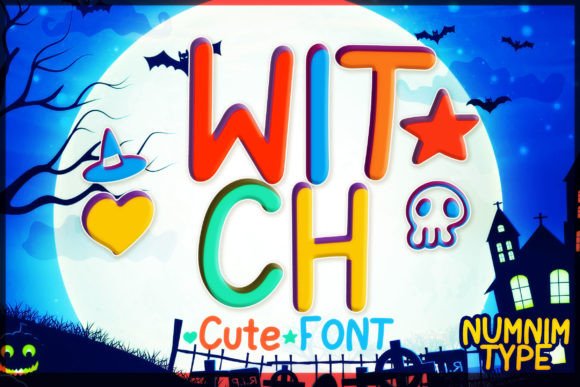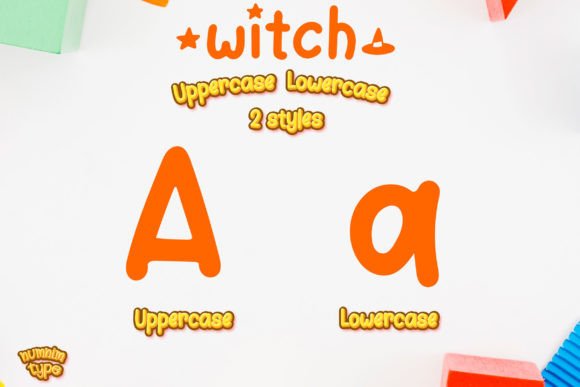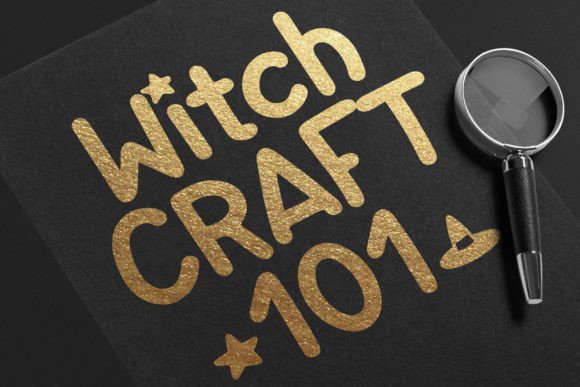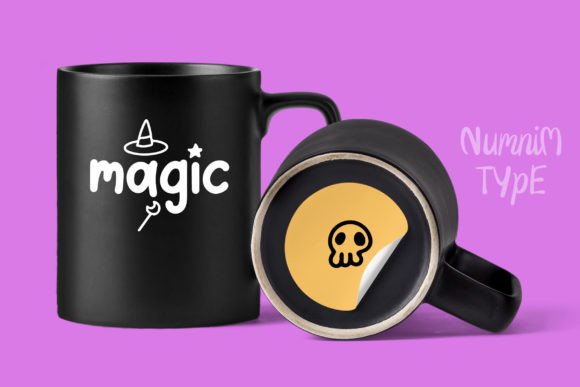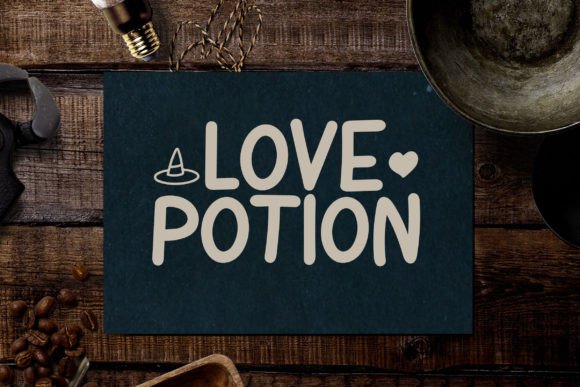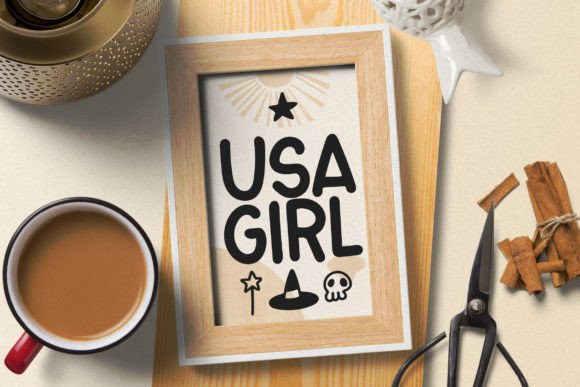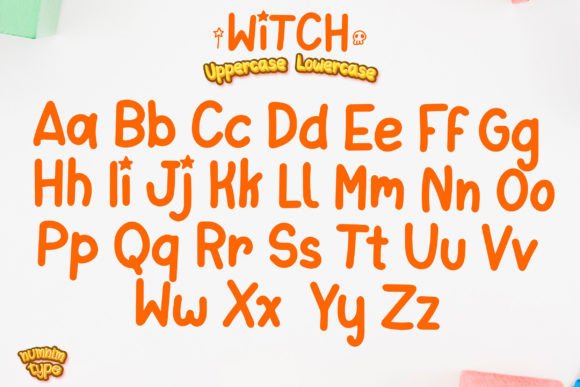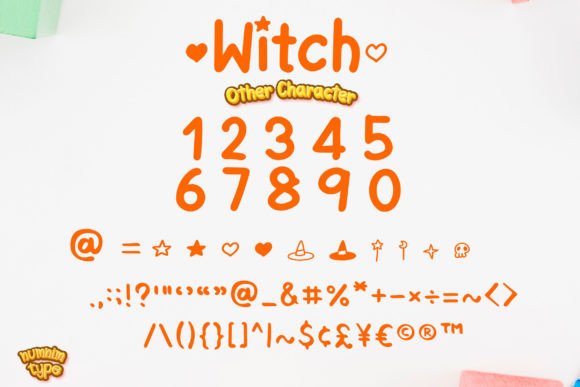
Witch Font
About Witch Font
Witch is a whimsical and uniquely crafted handwritten font that brings a touch of playfulness to your creative projects. Let’s explore the key features and potential uses of this charming font:
1. **Playful and Cute Design:** The font’s playful and cute characters make it stand out, adding a lighthearted and whimsical vibe to your designs.
2. **Stickers:** Witch is well-suited for creating stickers with a fun and vibrant appeal. Whether you’re designing stickers for kids or themed events, the font’s uniqueness adds character to each sticker.
3. **Mugs and T-Shirts:** Infuse your merchandise, such as mugs and T-shirts, with a playful charm using Witch. The font’s quirky style can make your products more visually interesting and appealing.
4. **Ornaments and Decorations:** Consider using Witch for crafting ornaments and decorations, especially for events like Halloween. Its fun design adds a festive touch to your creations.
5. **Halloween Event Cards:** With its playful and slightly spooky aesthetic, Witch is an excellent choice for designing Halloween event cards. Whether it’s invitations or greeting cards, the font enhances the Halloween theme.
6. **Crafts and DIY Projects:** Incorporate Witch into various craft projects and DIY endeavors. Its unique design can add a personalized and handmade touch to your creations.
7. **Children’s Books and Materials:** The font’s cute and friendly appearance makes it suitable for children’s books, educational materials, and other content aimed at a younger audience.
8. **Social Media Graphics:** Create engaging and eye-catching social media graphics using Witch. The font’s playful nature can make your posts more shareable and attention-grabbing.
9. **Themed Events and Parties:** Use Witch to design materials for themed events and parties. Its fun characters contribute to the overall atmosphere of celebration and joy.
10. **Digital Illustrations:** Incorporate Witch into your digital illustrations, adding a touch of whimsy to characters, captions, or any text elements within your artwork.
11. **Versatility:** Despite its whimsical style, Witch can be versatile in its application. Experiment with different color schemes and backgrounds to adapt the font to various design contexts.
By leveraging the playful and cute qualities of Witch, you can create visually appealing and memorable designs across a range of projects. Whether you’re aiming for a festive Halloween look or adding a touch of fun to everyday items, Witch brings a unique and delightful character to your creative toolbox.